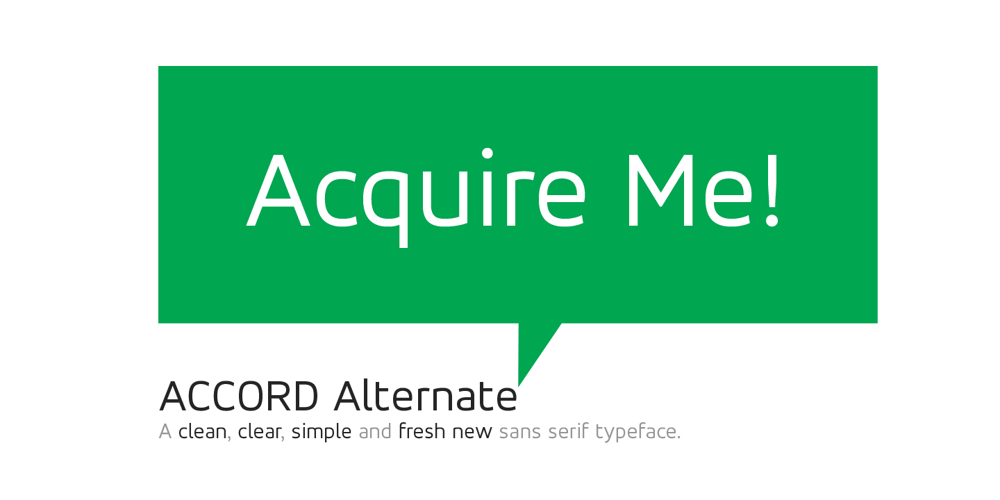
Accord Alternate
Accord Alternate font
Accord Alternate Font Family was designed by Aakash Soneri and published by Soneri Type. Accord Alternate contains 14 styles and family package options. The main difference between Accord Alt and Accord is in the way curved strokes join with vertical stems in letters such as “bpn”. The Italics are designed at an italic angle of 10 degrees. All the letter forms have been kept similar while designing italic instead changing the form e.g. ‘a’ remains same double story in italic also instead changing it to single story. The intention is to keep it simple and neutral which helps communicate the corporate sense of professionalism.